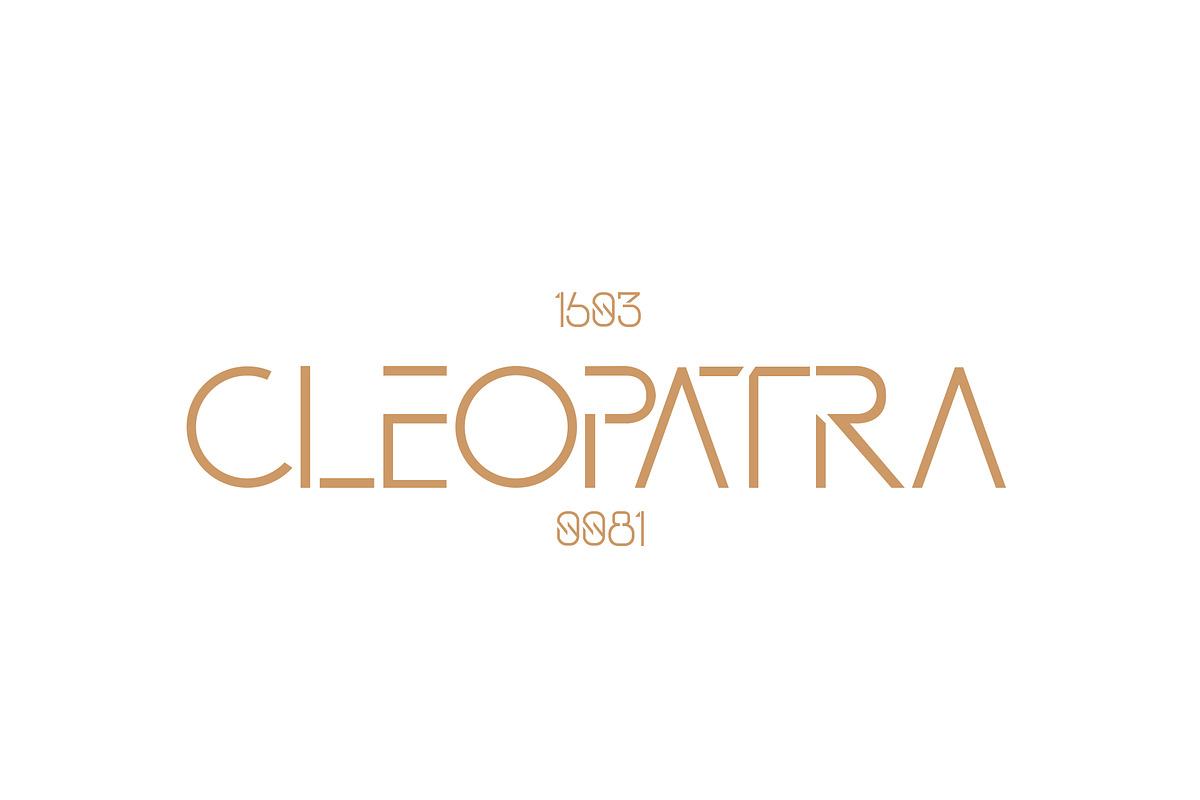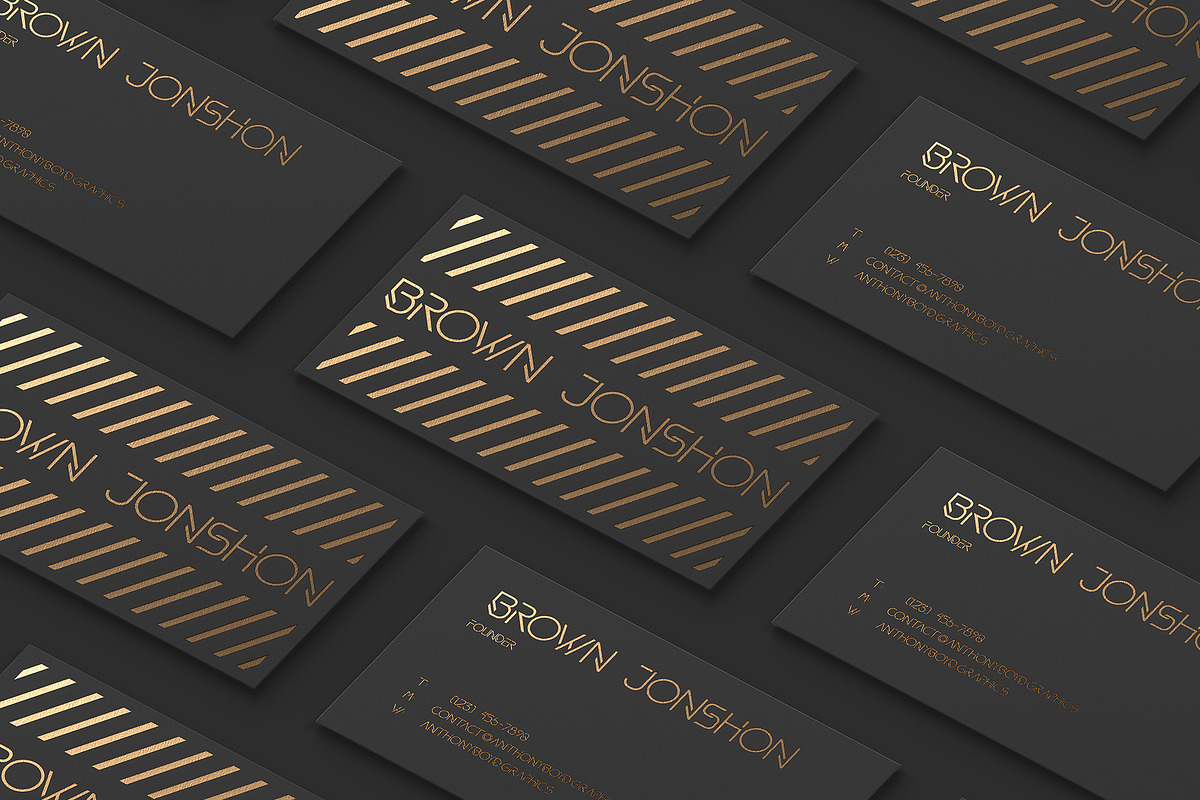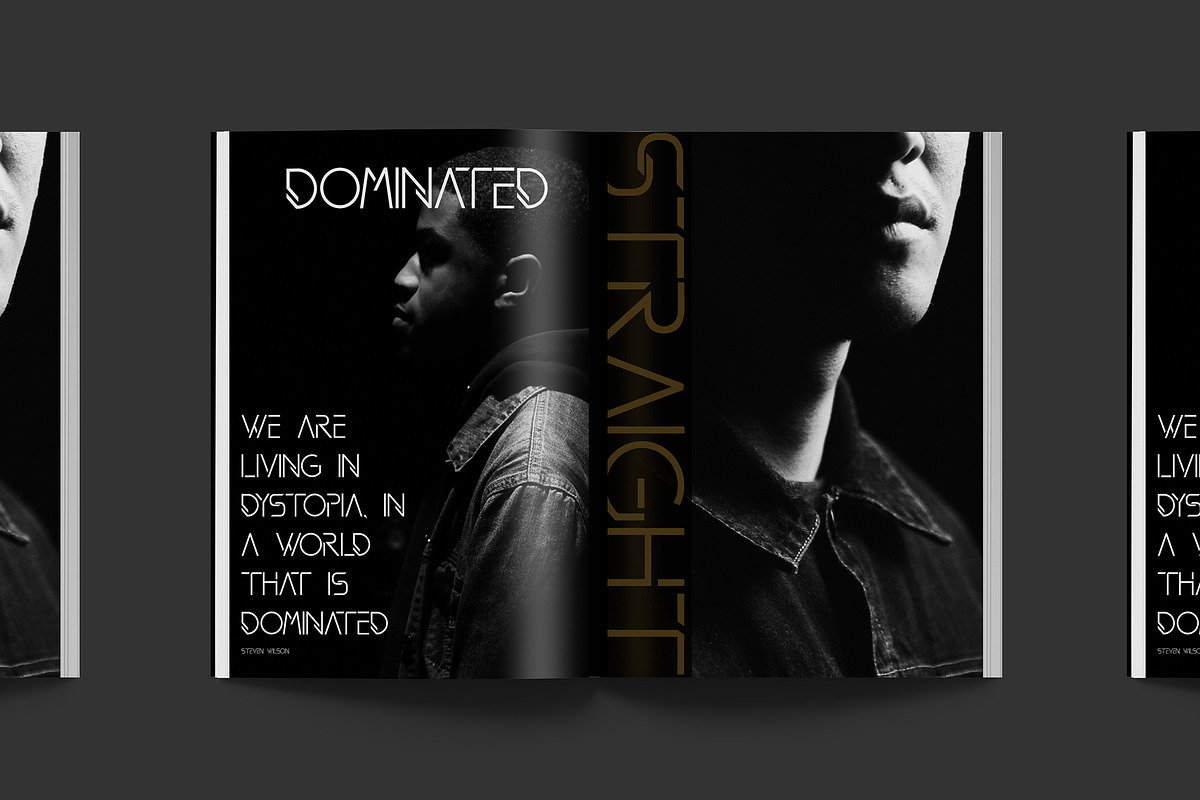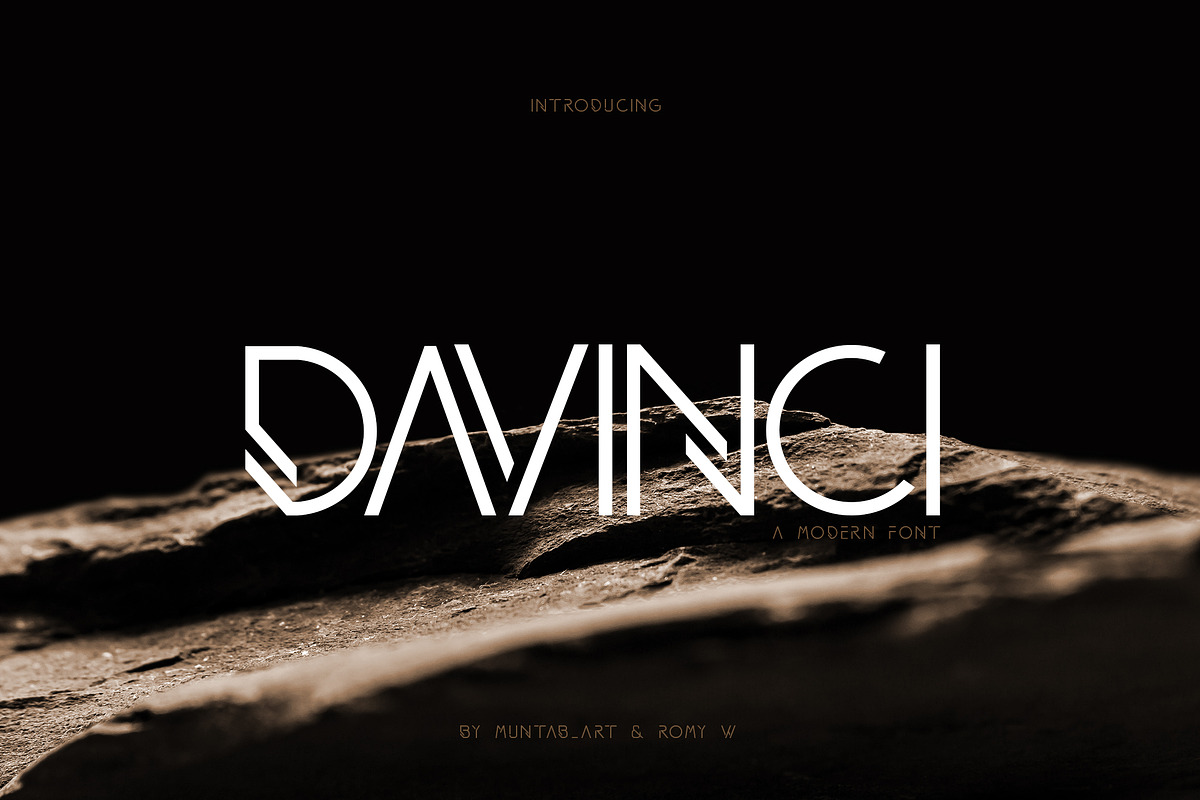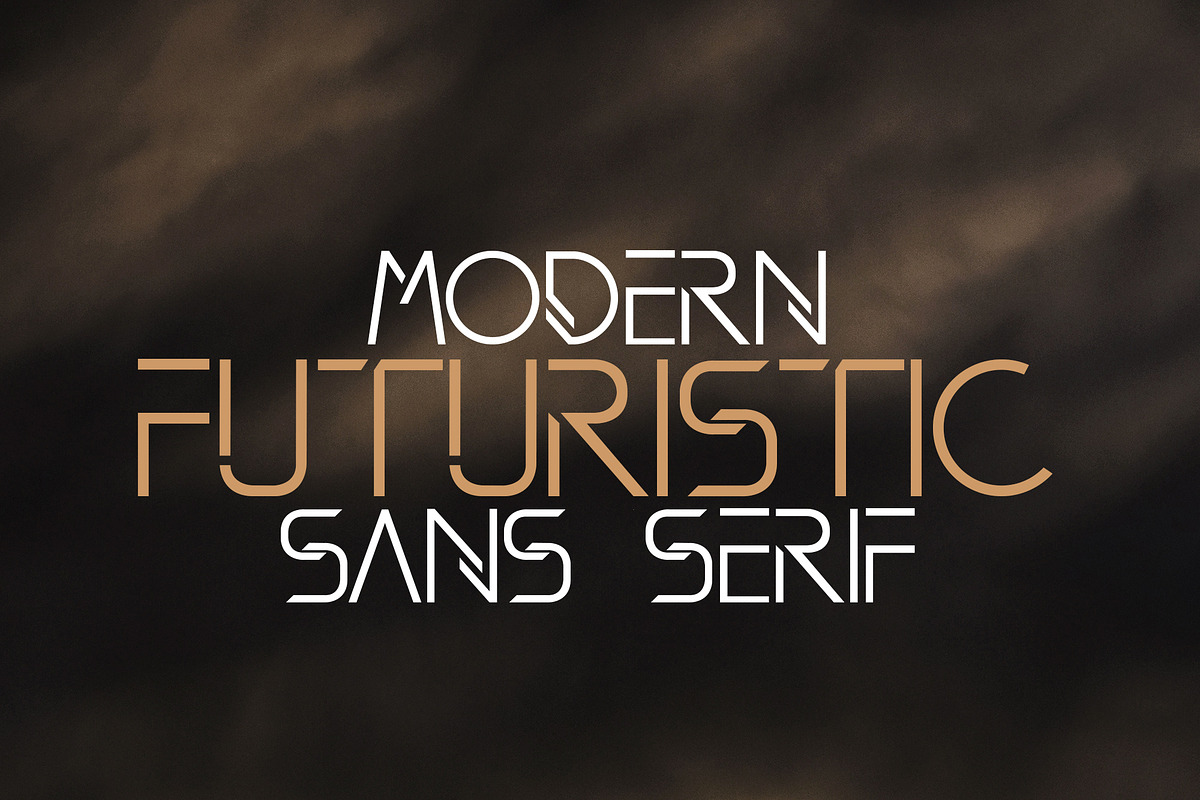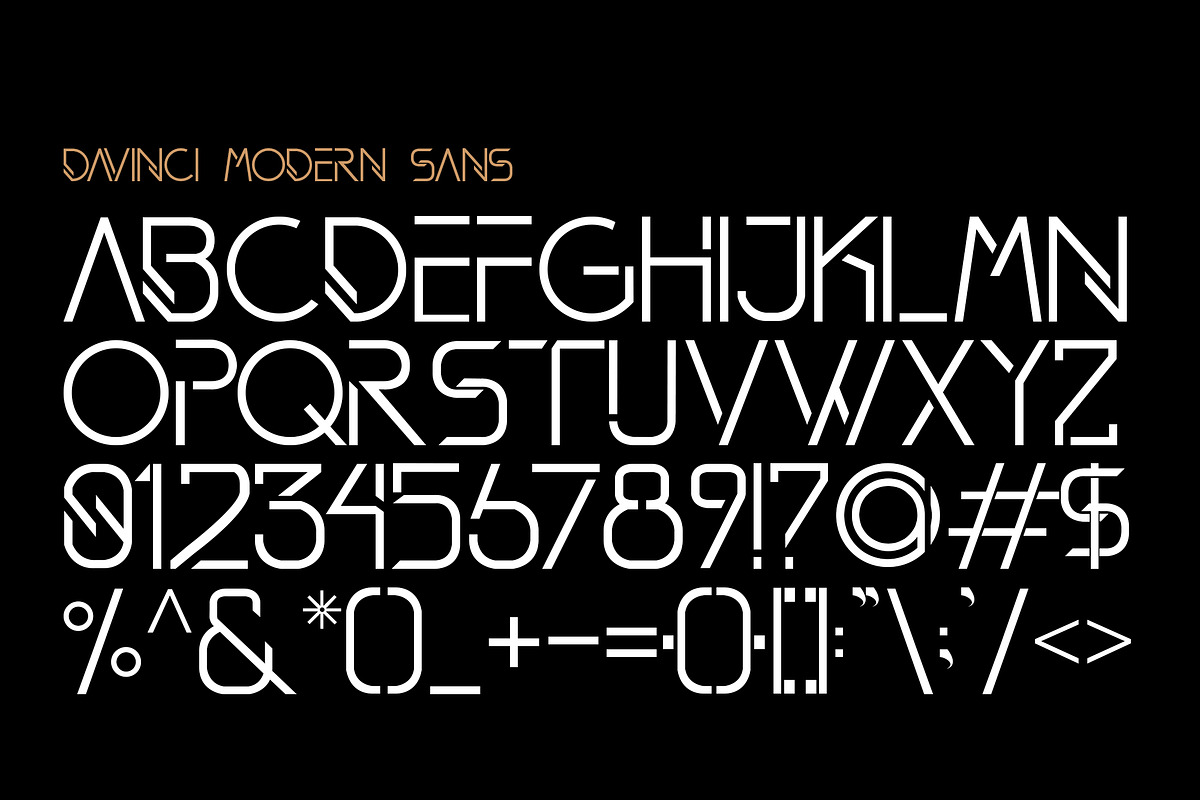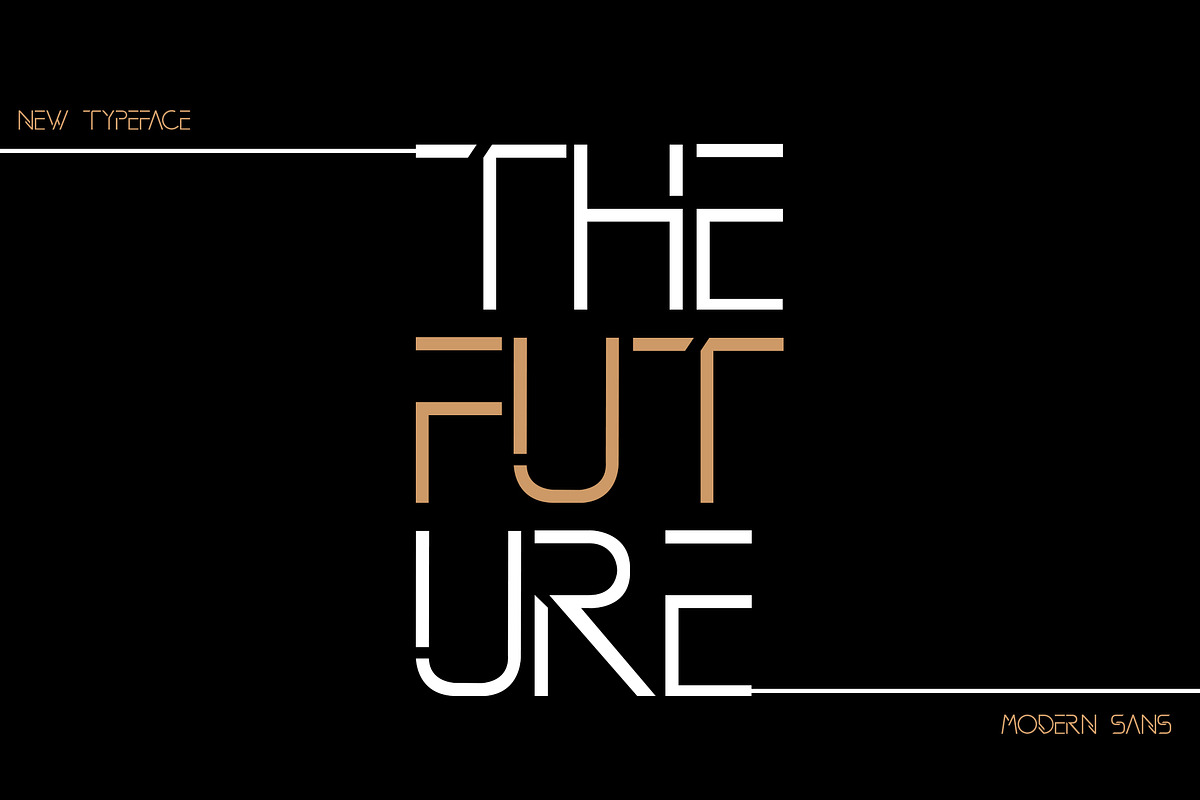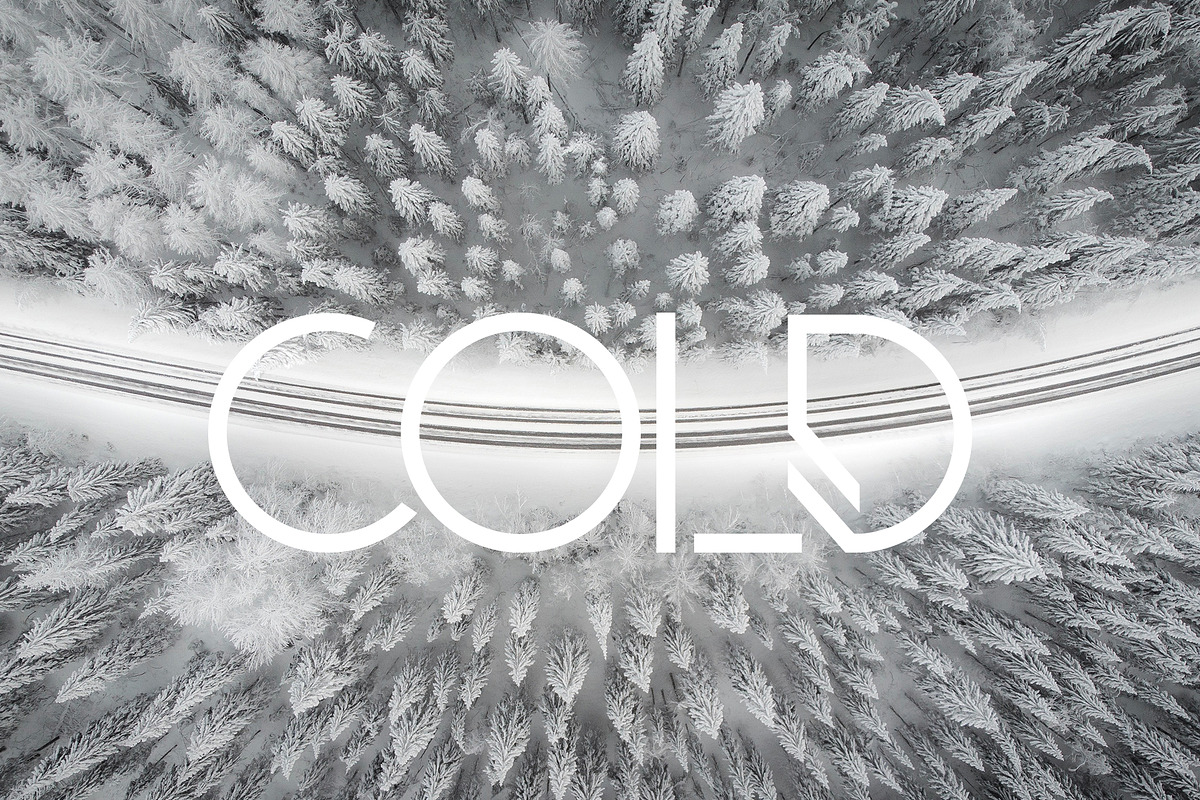
DAVINCI FONTS | MODERN SANS
DAVINCI fonts includes uppercase letters, numerals, a large range of punctuation. sans serif font with modern style. Created for poster, web design, branding, illustrations, badges and some other works.
- DAVINCI fonts includes uppercase letters, numerals, a large range of punctuation.
DAVINCI FONTS | MODERN SANS by MuntabArt fits naturally into Branding, posters, packaging, typography.